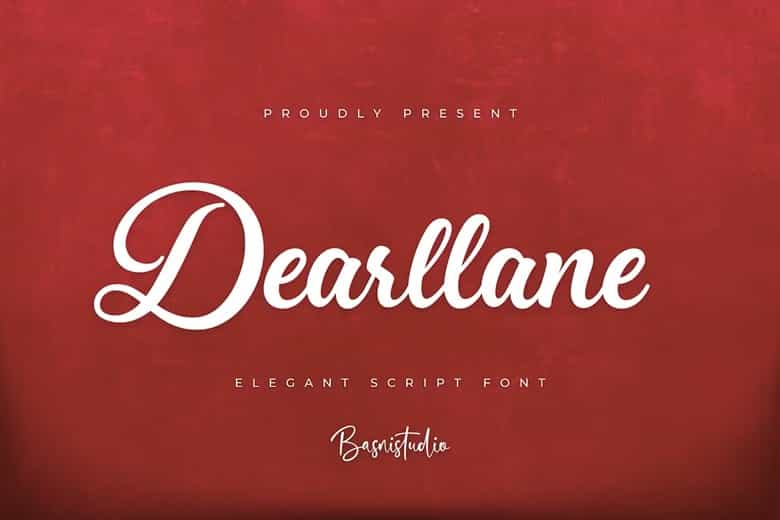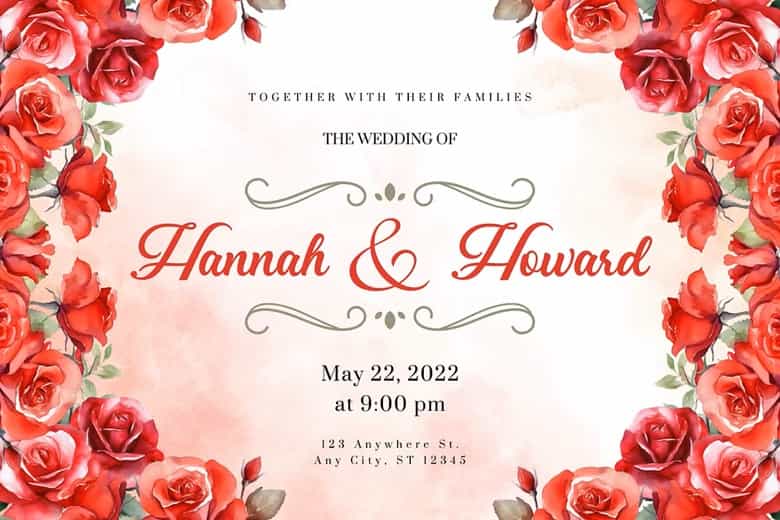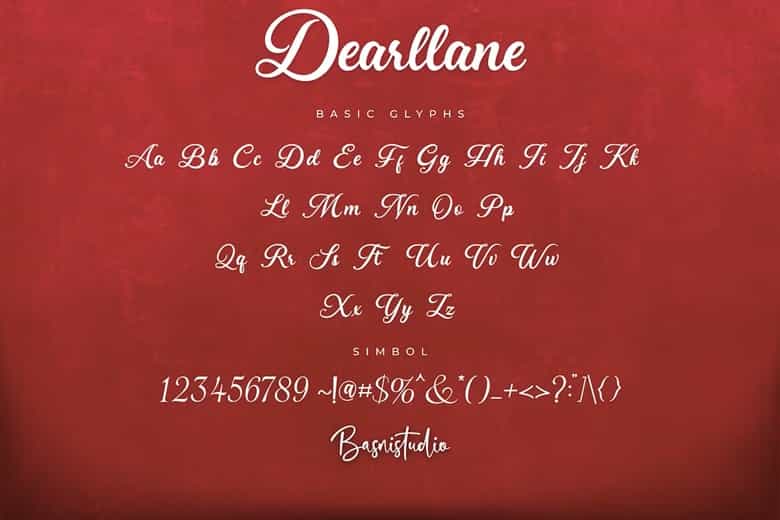
Searching a font to add warmth, character and genuineness to your projects? Dearllane is a calligraphy script font that gives a elegant, versatile taste to both branding and social media as well as invitations and packaging.